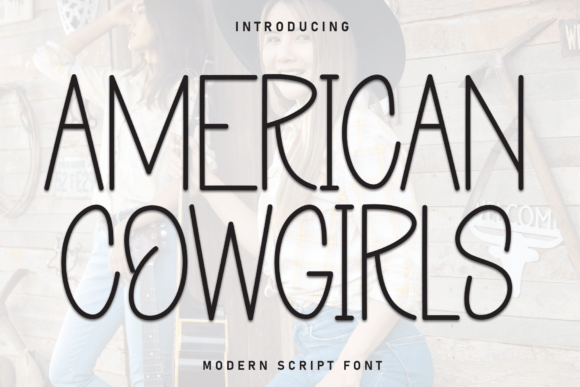
The Perfect Font for Your Next Design Project: American Cowgirls
I’ll never forget the time I was working on a branding project for a client’s new coffee shop. I had the logo, the color palette, and the overall aesthetic nailed down, but something was missing – the perfect font. I scoured the internet, tried out dozens of fonts, but none of them seemed quite right. That was until I stumbled upon American Cowgirls. This casual and neat display font has been a game-changer for my design projects, and I’m excited to share it with you.
A Personal Review of American Cowgirls
So, what makes American Cowgirls so special? Let’s dive into the good stuff.
- ✨ Clean lines and balanced letterforms that make it easy to read and visually appealing.
- ✅ Subtle rounded edges that give it a friendly and approachable vibe.
- 💡 Versatile style that works well for branding, headlines, packaging, and digital content.
- 👍 Crisp structure that delivers clarity and charm in equal measure.
Of course, no font is perfect, and American Cowgirls has a few small quirks to keep in mind:
- 🤔 Limited use of OpenType features, which may limit its use in certain design applications.
- ⚠️ May not be suitable for body text due to its display font nature.
The Backstory Behind American Cowgirls
American Cowgirls was designed with the modern designer in mind. The font’s creator wanted to craft a font that was both clean and approachable, with a friendly vibe that would work well for a variety of design applications. The result is a font that’s perfect for branding, headlines, packaging, and digital content.
- Q: What type of font is American Cowgirls?
- A: American Cowgirls is a casual and neat display font.
- Q: What design applications is American Cowgirls suitable for?
- A: American Cowgirls is ideal for branding, headlines, packaging, and digital content.
- Q: Does American Cowgirls support OpenType features?
- A: American Cowgirls has limited support for OpenType features.
- Q: Can I use American Cowgirls for body text?
- A: No, American Cowgirls is a display font and may not be suitable for body text.